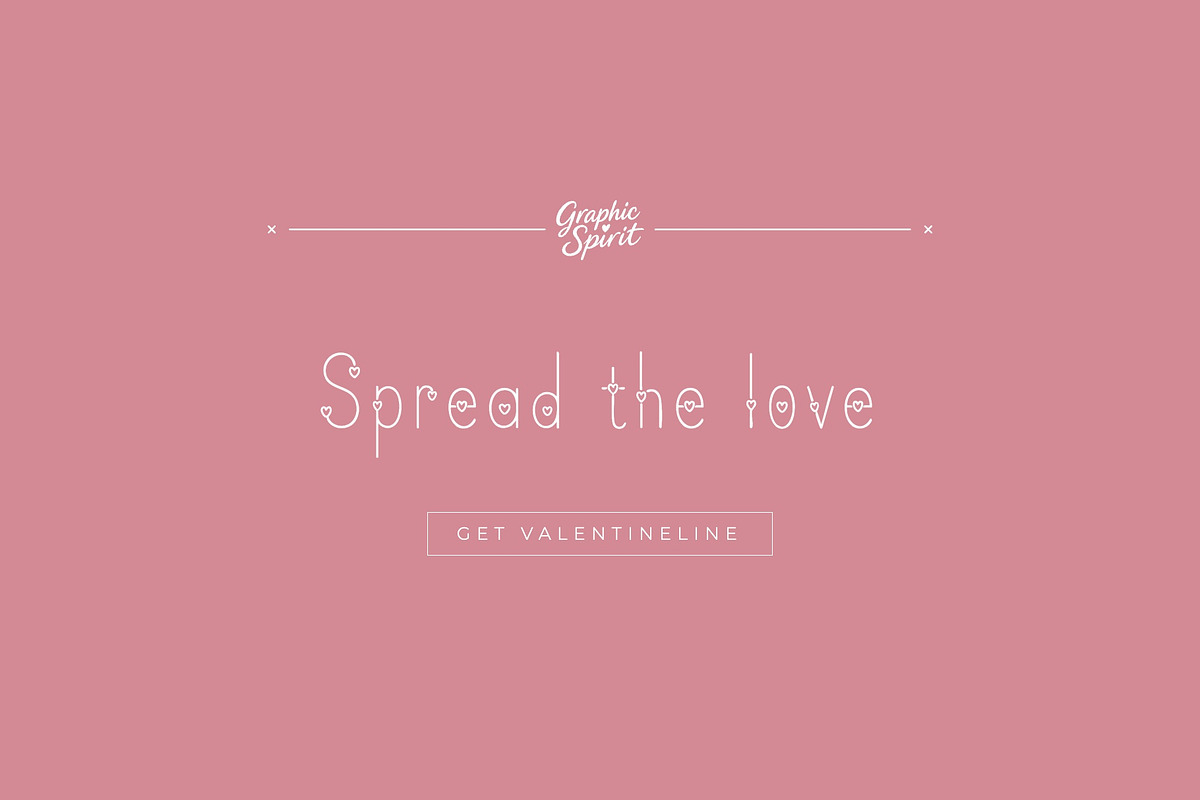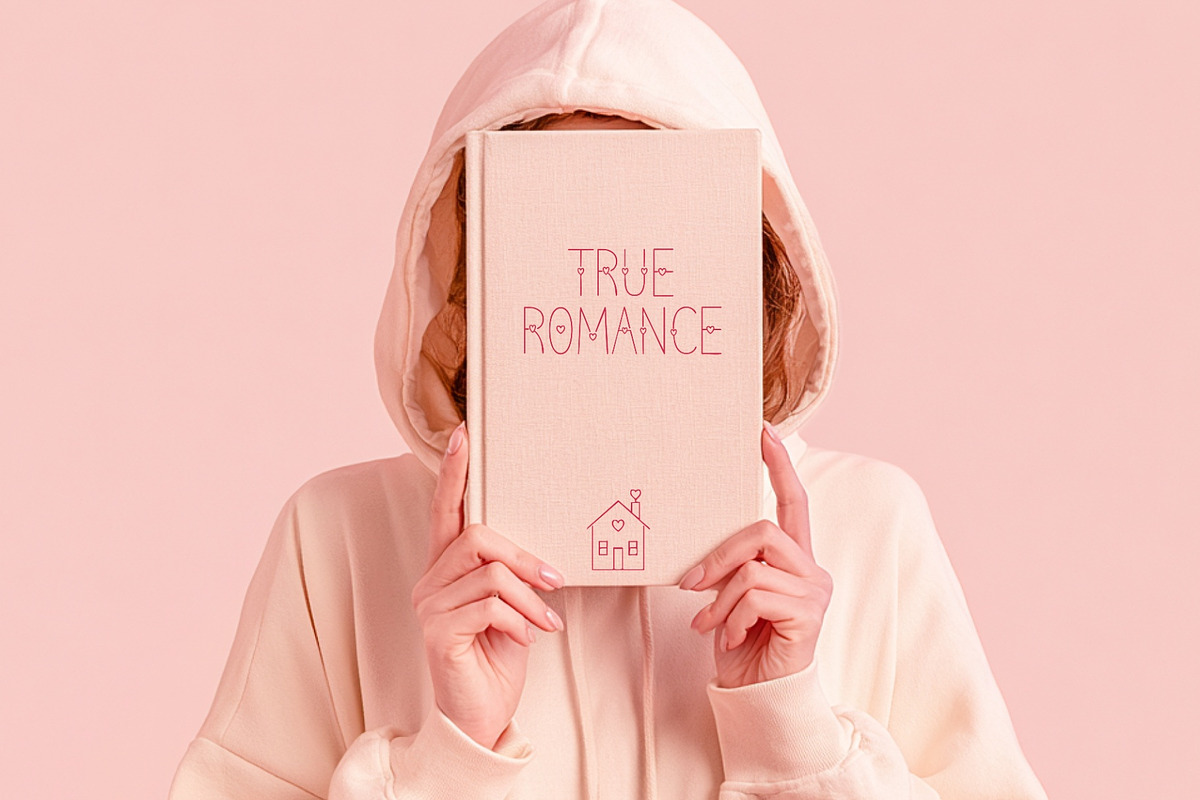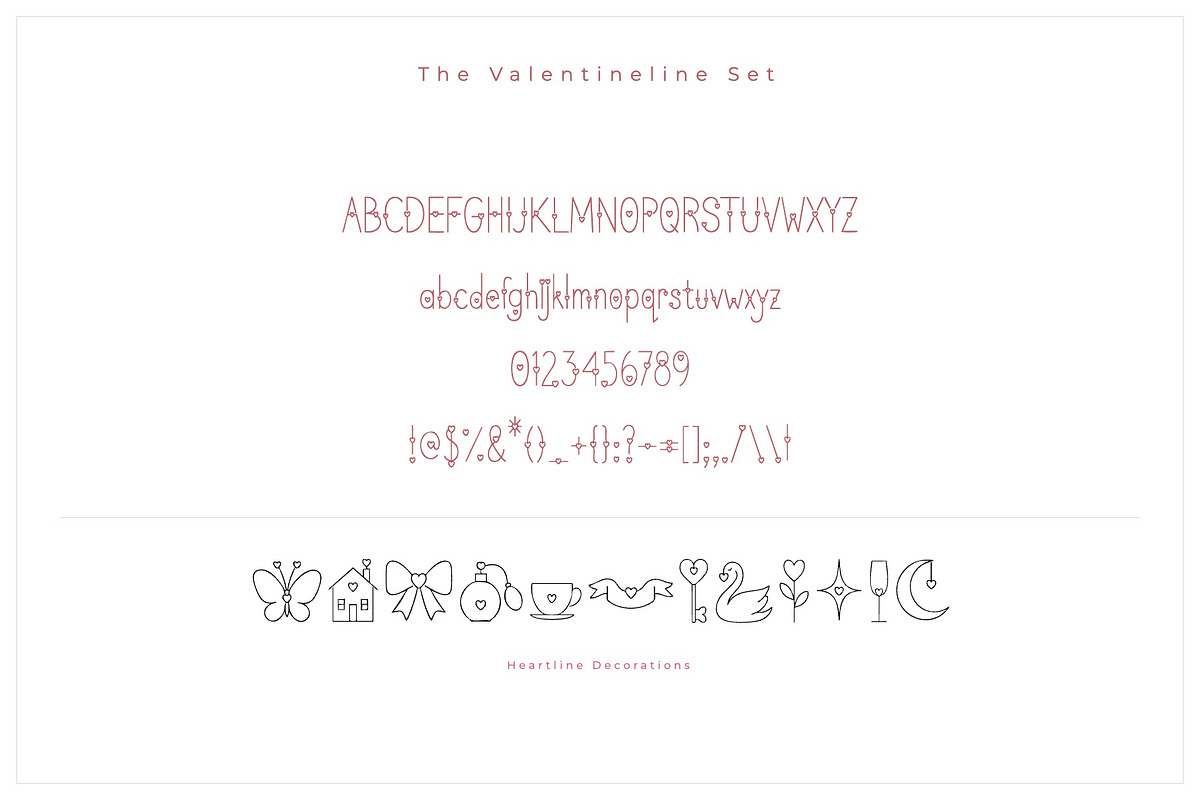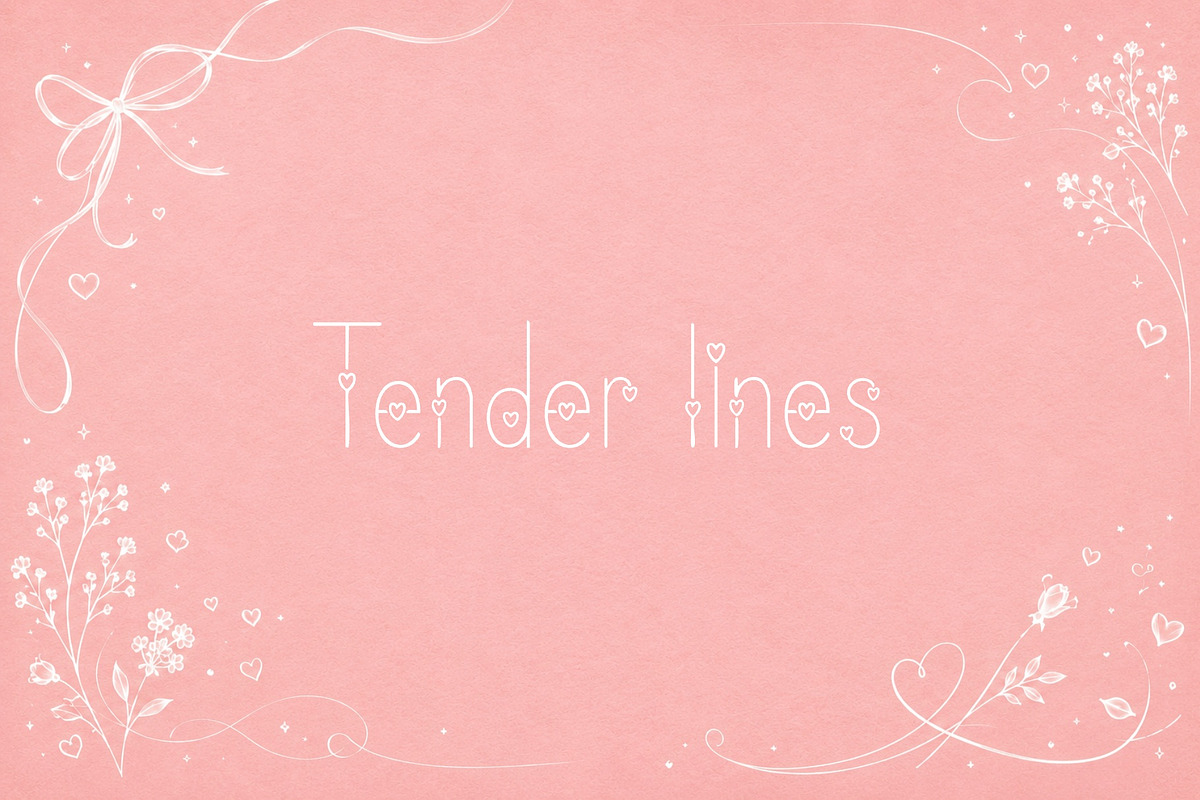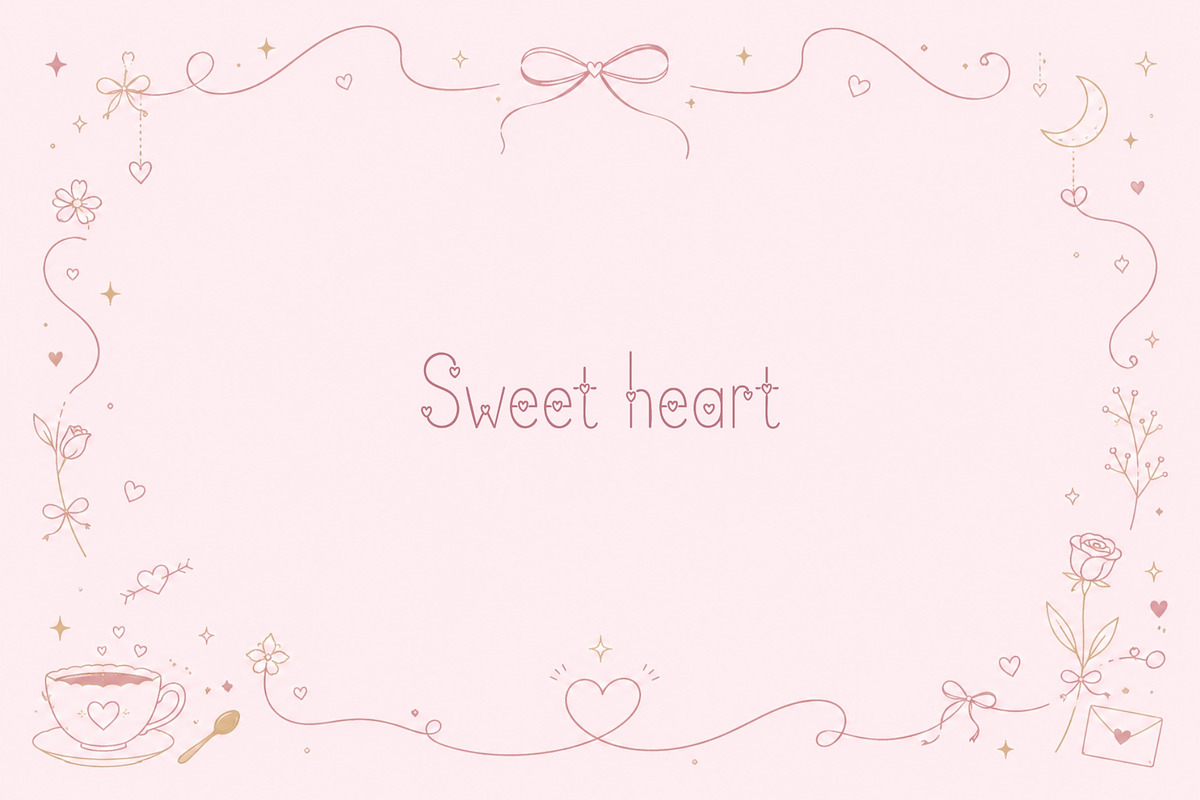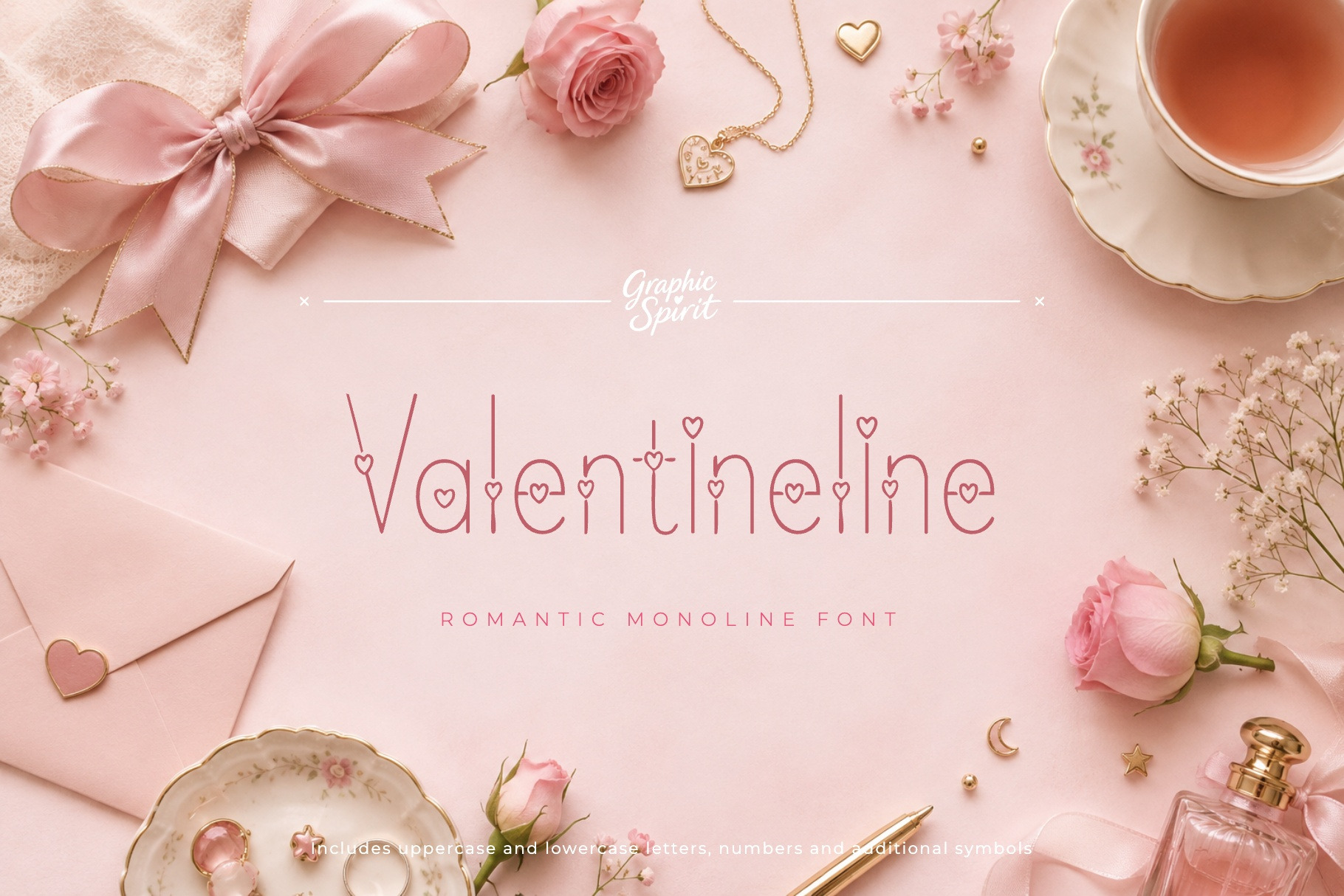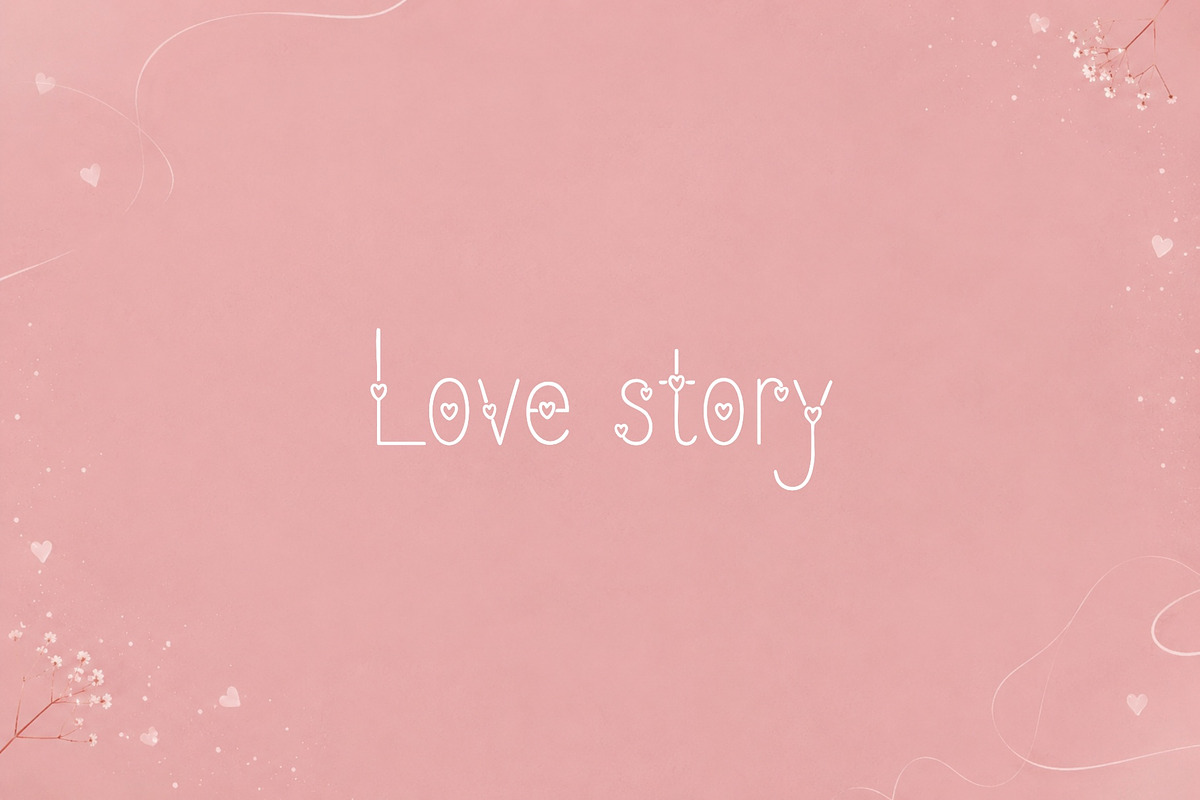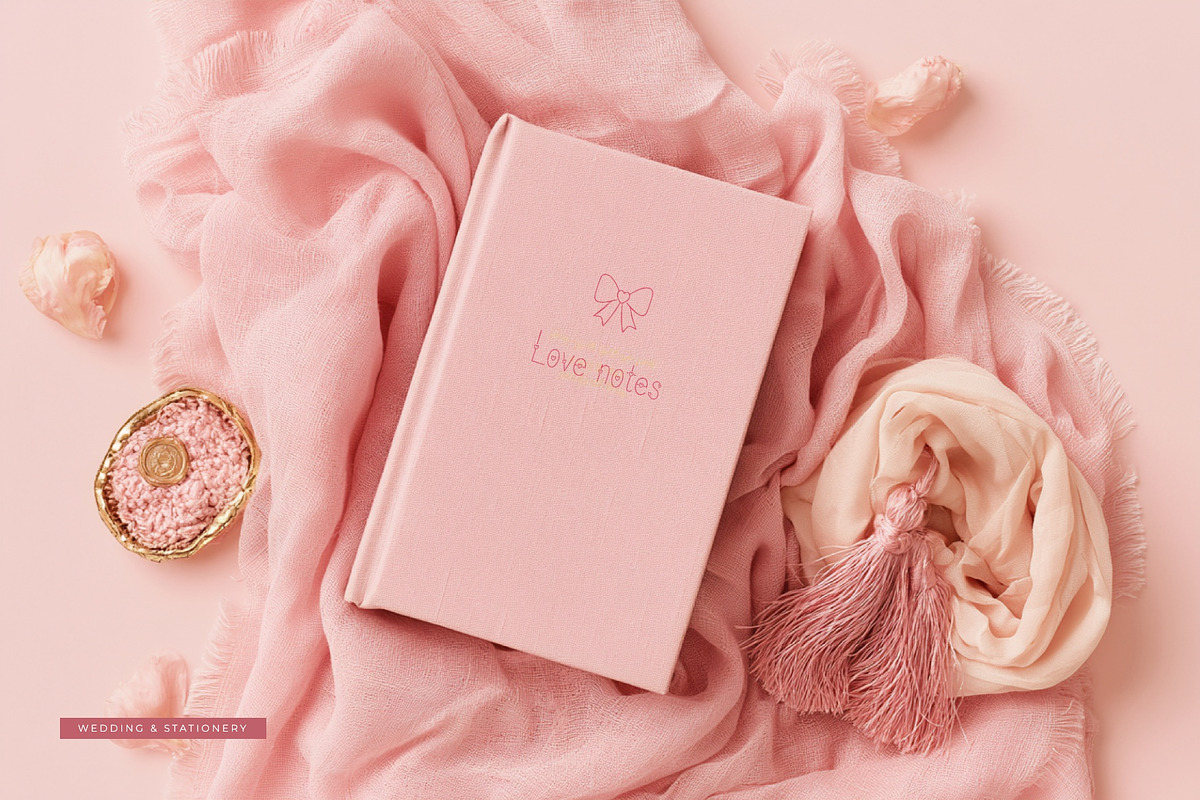
Valentineline Font
✨ Valentineline is a romantic monoline display font with tender heartline details, sweet stationery colors, and delicate love-note elegance. It was created for designers, makers, and small brands who need expressive typography with a clear visual personality.
🎨 Valentineline works beautifully for wedding stationery, love cards, romantic branding, valentine graphics, gift packaging, invitation design, heart-themed products, soft feminine titles. The style is strong enough for headlines and product names, but still friendly enough for approachable branding, packaging, posters, labels, social graphics, and creative layouts.
💛 The typeface has a distinct display rhythm, so even short words feel designed and intentional. It is a useful choice when you want a project to feel crafted, memorable, and visually specific.
Best for:
- 💌 Wedding stationery and invitation titles
- 💗 Love cards and Valentine graphics
- 🎀 Gift packaging and romantic labels
- 🌸 Soft feminine branding
- ✨ Delicate monoline display typography
Includes uppercase and lowercase letters, numbers, punctuation, and additional symbols shown in the previews.